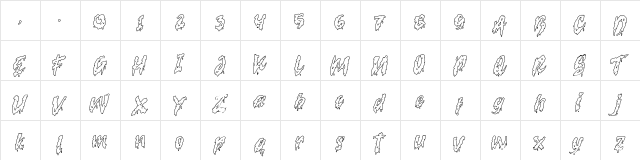
serrem outline demo Regular Font Preview
serrem outline demo Regular
serrem outline demo Regular Font Details
Design Context for serrem outline demo Typeface
serrem outline demo is built around its visual character rather than neutral utility — its distinctive forms are designed to make an impression at display sizes.
Font Pairing: Pair with a clean neutral sans-serif for body copy to let serrem outline demo's character lead without overwhelming the composition.
Pro Tip: Treat serrem outline demo as the centrepiece of your typographic hierarchy. One strong heading set in a decorative face can carry an entire layout.